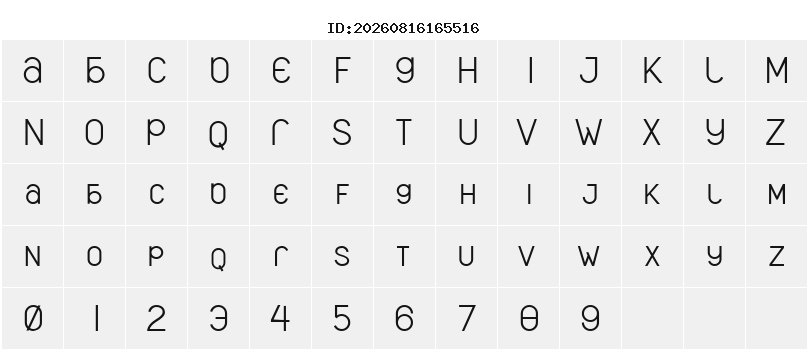
Spoing Preview
About Spoing.ttf
Spoing.ttf is a modern, elegant sans-serif font designed for ultimate readability and visual harmony. Perfect for branding, headlines, web design, and print materials.